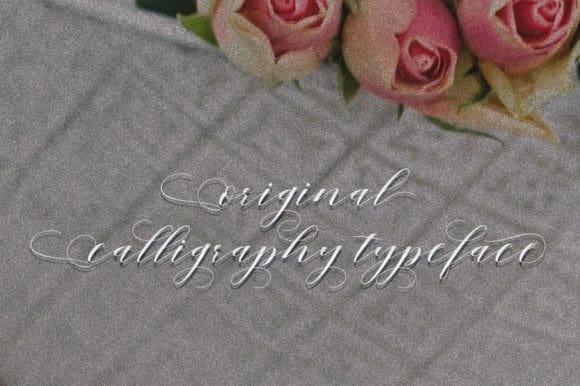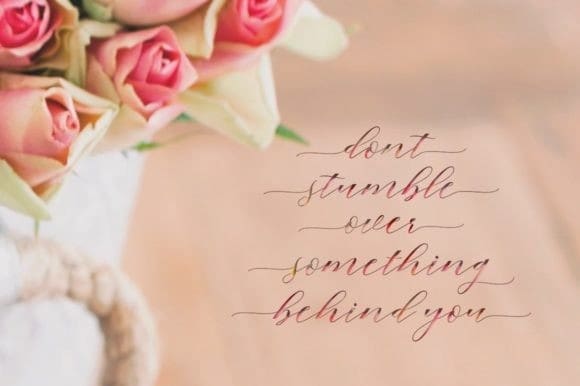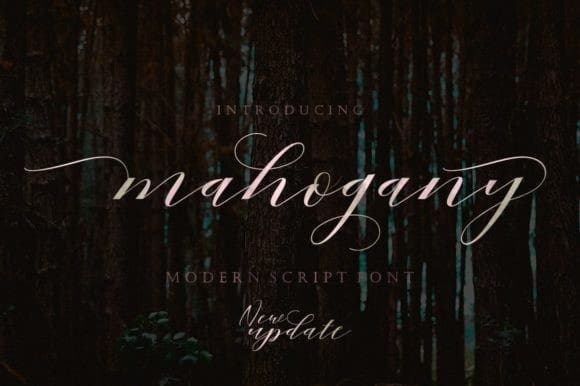
Mahogany Font
Mahogany Font is a lovely, modern calligraphic script font. It features dynamic and pretty swashes and can be used for many purposes, such as titles, signatures, logos, wedding invitations, letterhead, signage, labels, newsletters, posters, badges, etc.